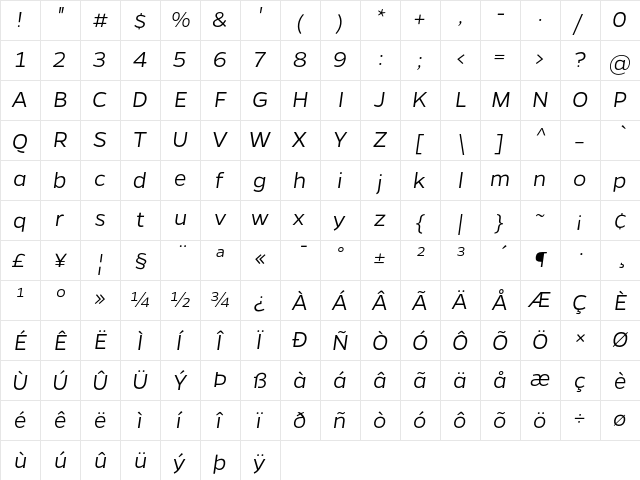
Gentona Light Italic Regular
Design Context for Gentona Light Italic Typeface
Gentona Light Italic offers clean, dependable letterforms without strong stylistic allegiance, making it a practical choice for designers who need flexibility. The slanted form adds forward momentum and visual energy. The delicate stroke weight brings airiness and refinement to layouts.
Pro Tip: Use Gentona Light Italic for emphasis, pull quotes, and subheadings where its slanted energy can add rhythm to the layout.